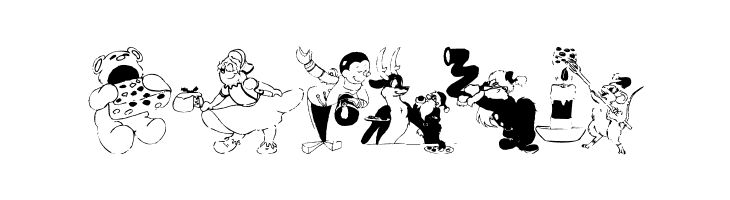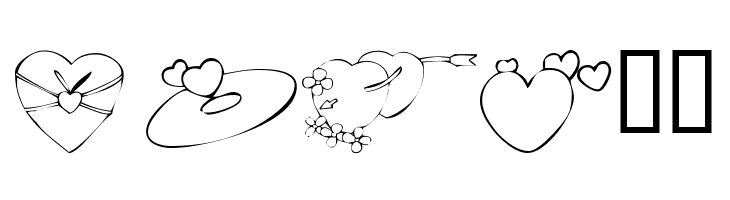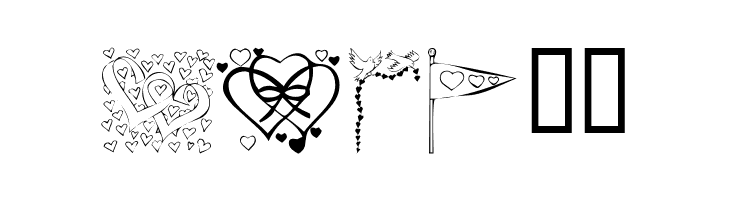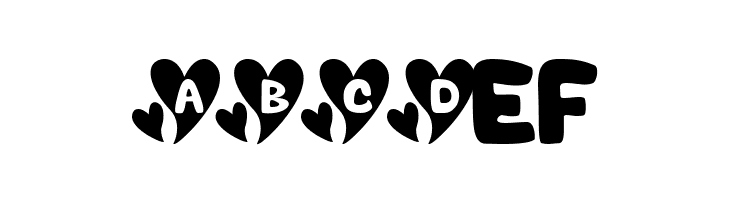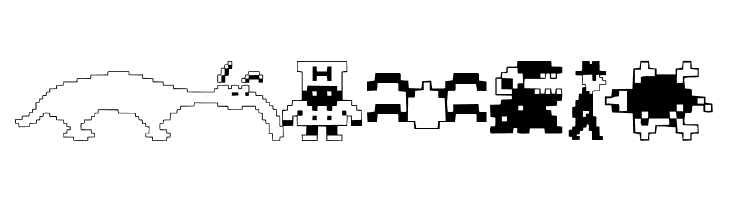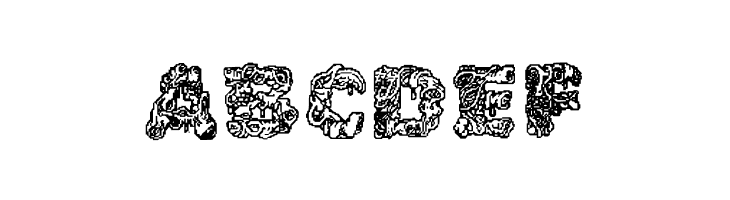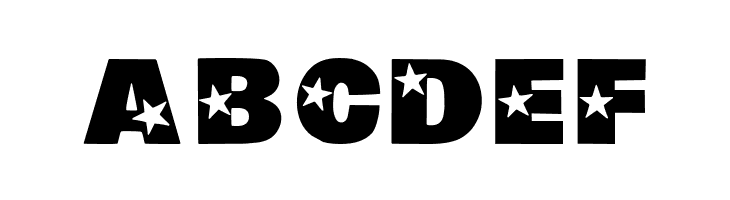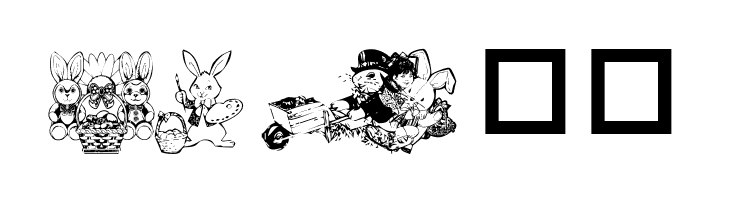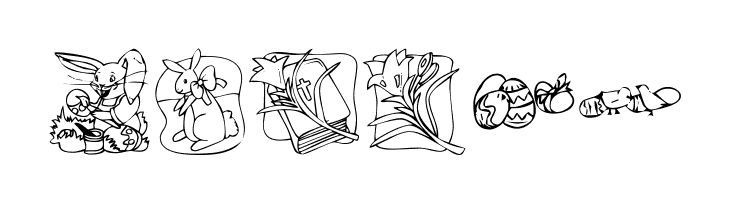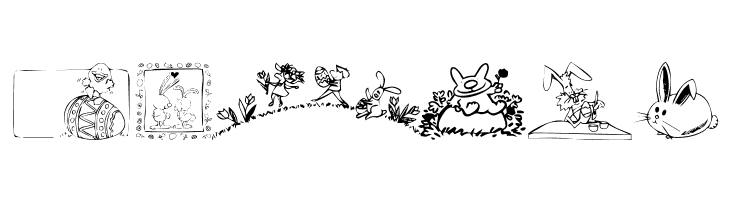
A decorative font with festive holiday-themed illustrations replacing traditional characters.
A decorative font with romantic and whimsical illustrations replacing characters.
A whimsical, hand-drawn Valentine-themed illustration set with playful heart motifs.
A decorative font with romantic and whimsical symbols replacing traditional characters.
A decorative font inspired by classic arcade game graphics, featuring pixelated, nostalgic symbols.
A playful, balloon-themed font with bold, rounded characters and decorative strings.
A whimsical and decorative font with star-like bursts and circular embellishments.
A decorative Easter-themed font with playful illustrations replacing characters.
A decorative font with Easter-themed illustrations for each character.
A decorative Easter-themed font with playful illustrations in each character.
A playful decorative font with diverse star-themed glyphs.
A decorative font composed entirely of assorted star and burst shapes.
A decorative font inspired by Dia de los Muertos, featuring festive and cultural symbols.
A decorative font with birthday-themed illustrations for each character.
A festive, decorative font with numbers embellished with birthday-themed elements.